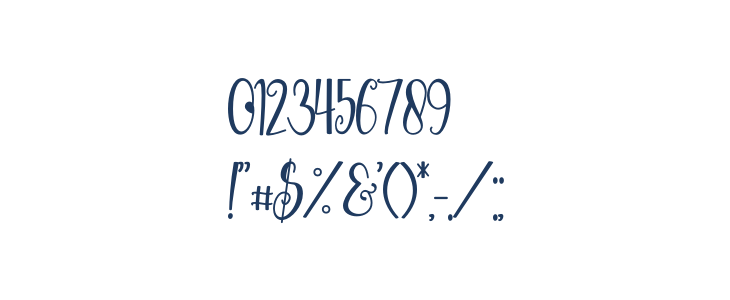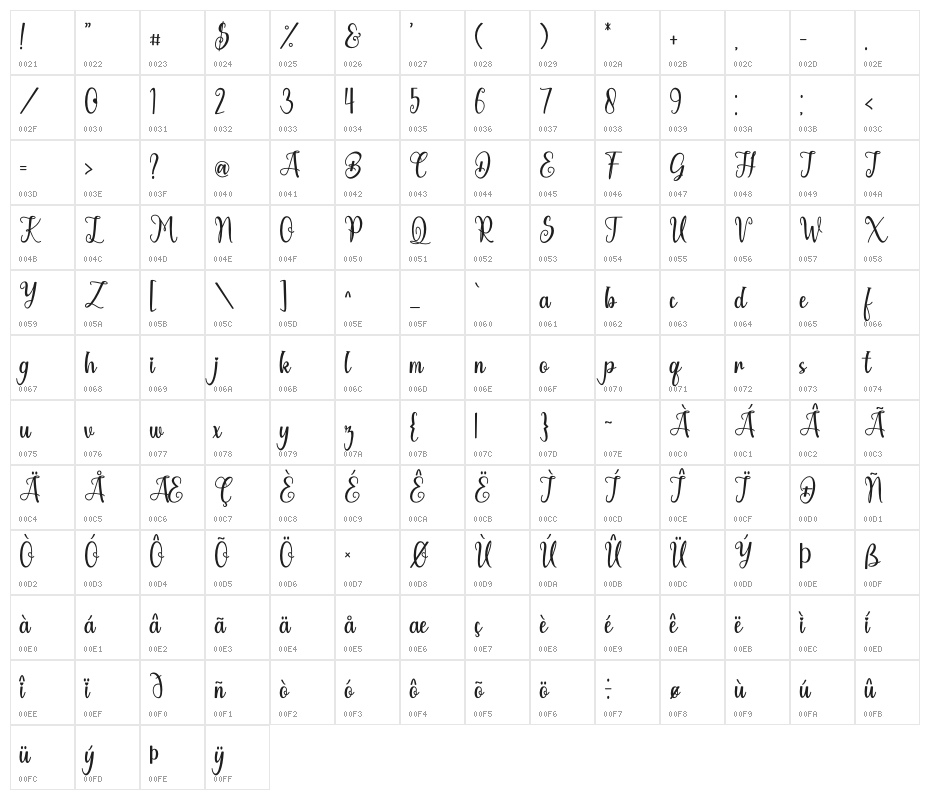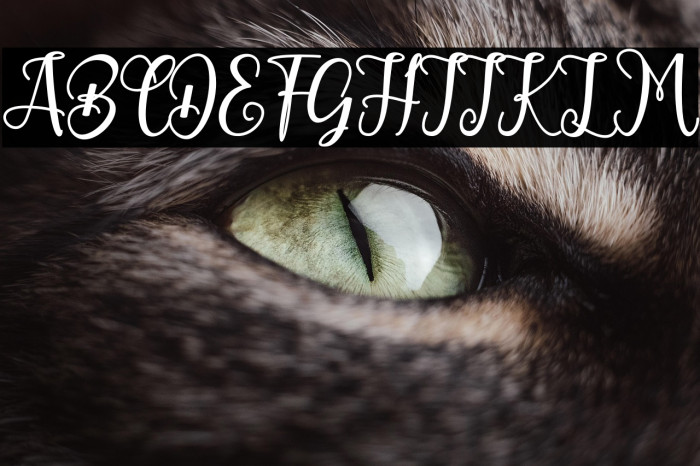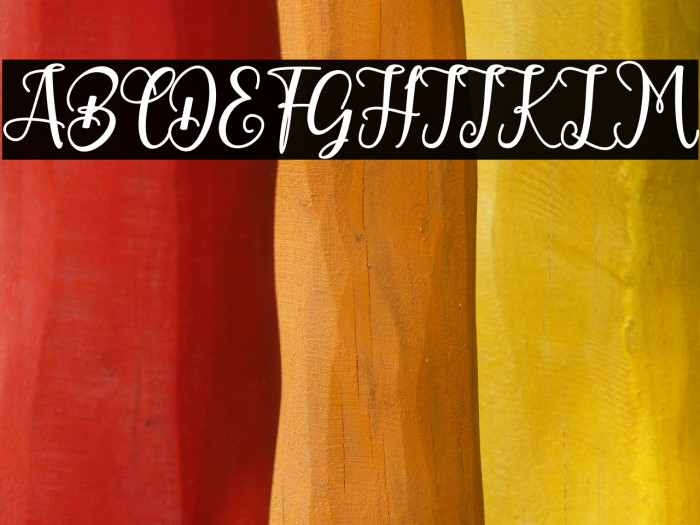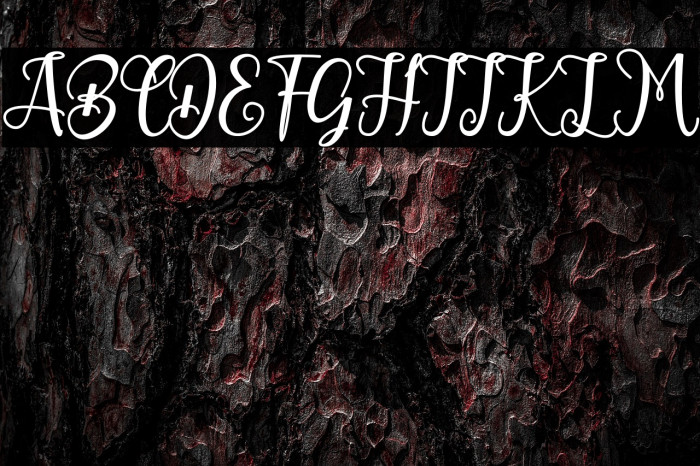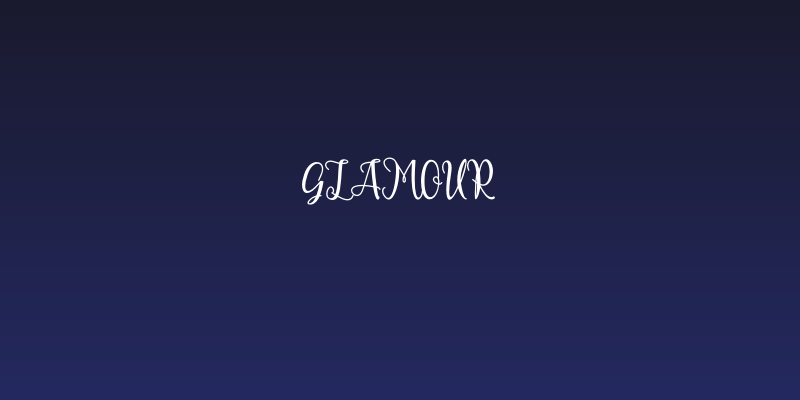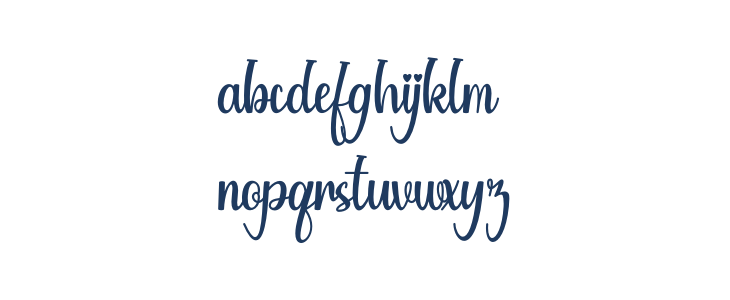
Glamour Font
Glamour Description
This font features an elegant and flowing script style, characterized by its smooth, cursive lines and decorative flourishes. The uppercase letters are particularly ornate, with loops and swirls that add a touch of sophistication and glamour. The lowercase letters maintain a consistent style, with a slightly more restrained design that ensures readability. Numbers and special characters are designed to match the overall aesthetic, with a playful yet refined appearance. This font is ideal for projects that require a touch of elegance and style, such as invitations, branding, and editorial design.
| Use Case | Headlines, Invitations, Branding |
| Proposed Projects | Ideal for wedding invitations, luxury branding, and editorial design. |